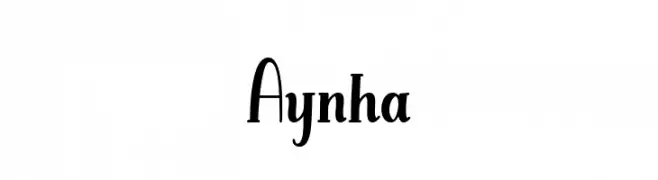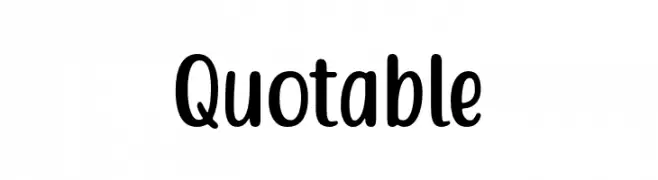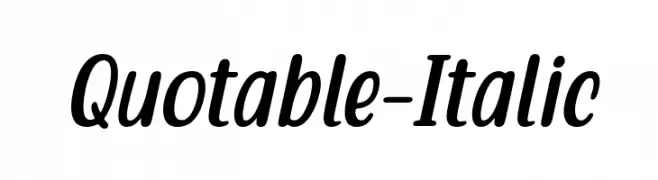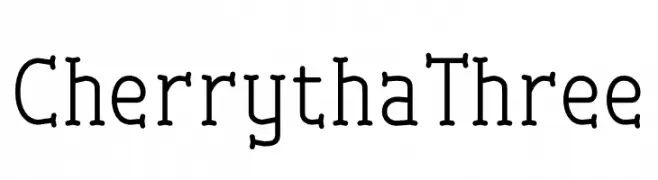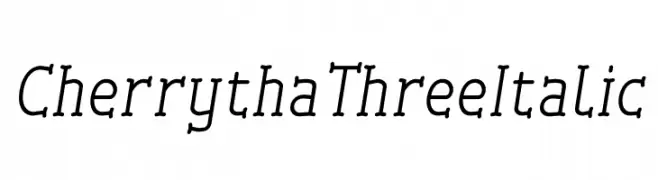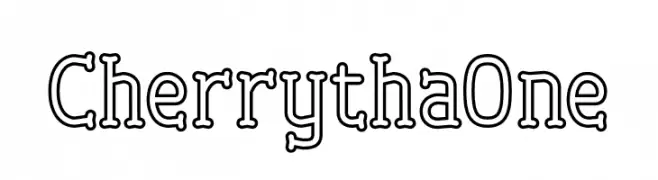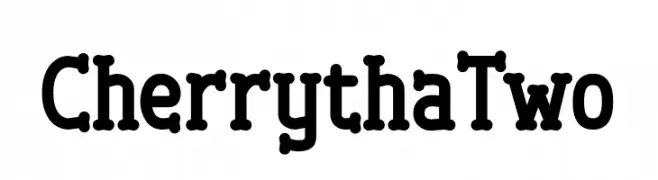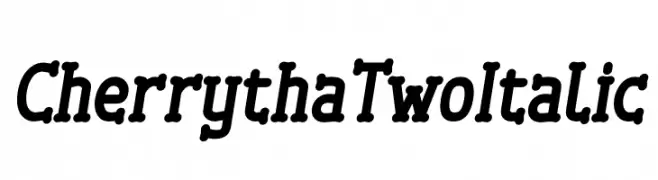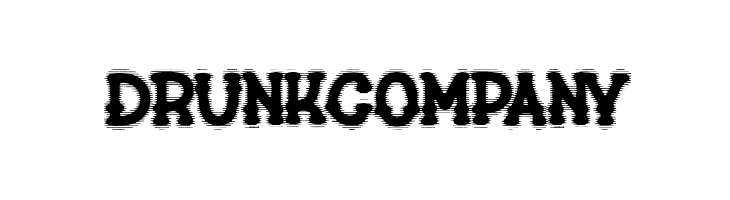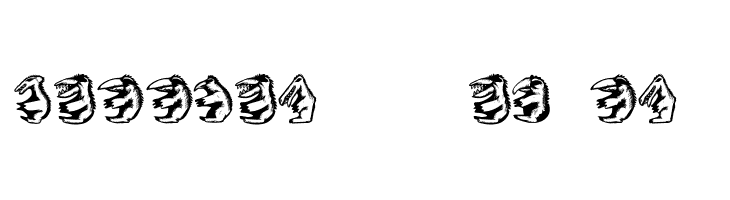
A tall, narrow font with elegant curves and playful character.
A playful, rounded font with bold, smooth curves and a friendly appearance.
A smooth, flowing italic font with a modern and approachable style.
A bold, flowing script font with elegant, cursive letterforms.
A playful serif font with rounded serifs and consistent stroke width.
A playful, outlined font with a dynamic, italicized style.
A slanted, handwritten-style font with consistent stroke width.
A playful, decorative font with bold outlines and a whimsical style.
A playful, bold font with rounded edges and a whimsical style.
A bold, playful italic font with rounded, thick strokes.